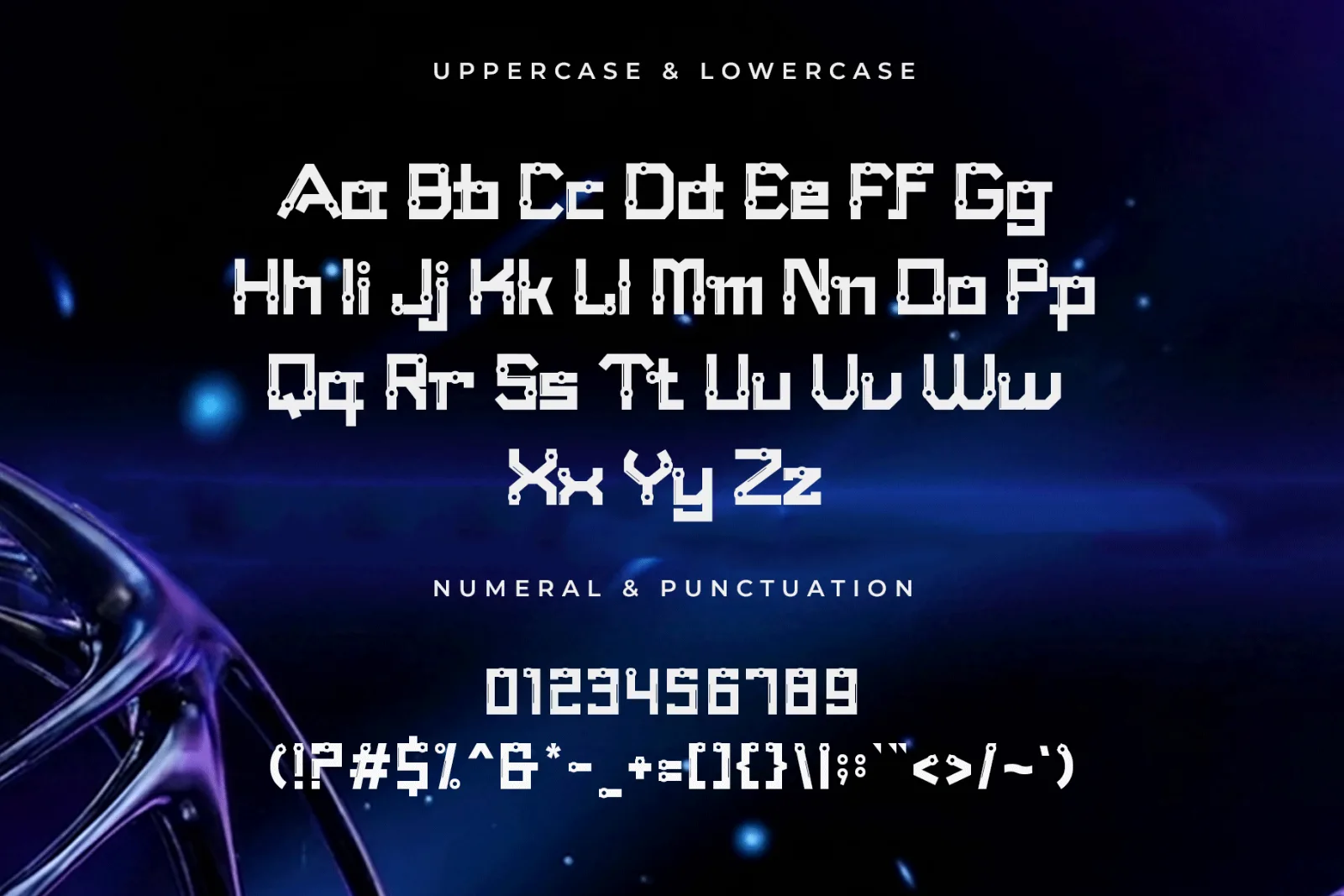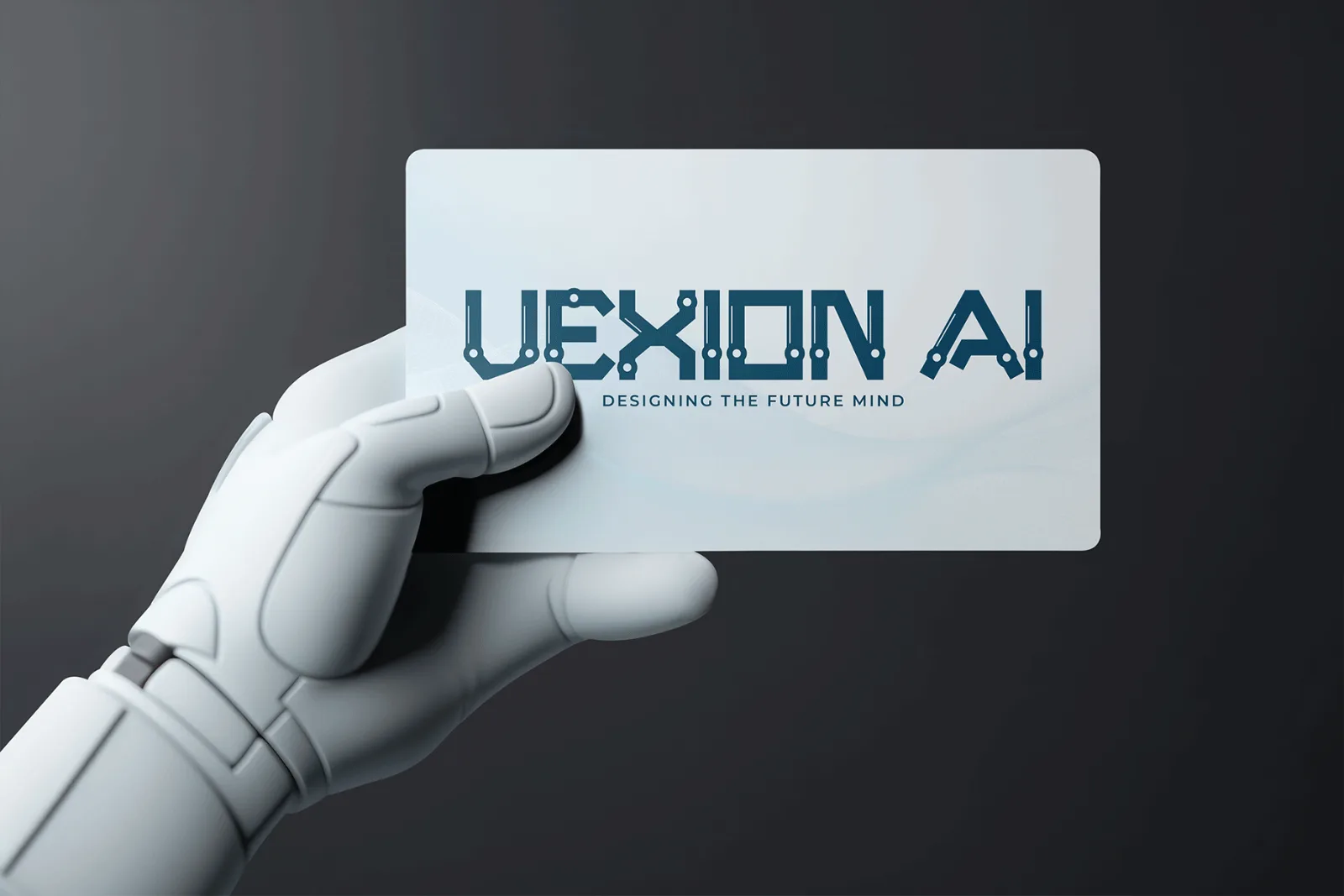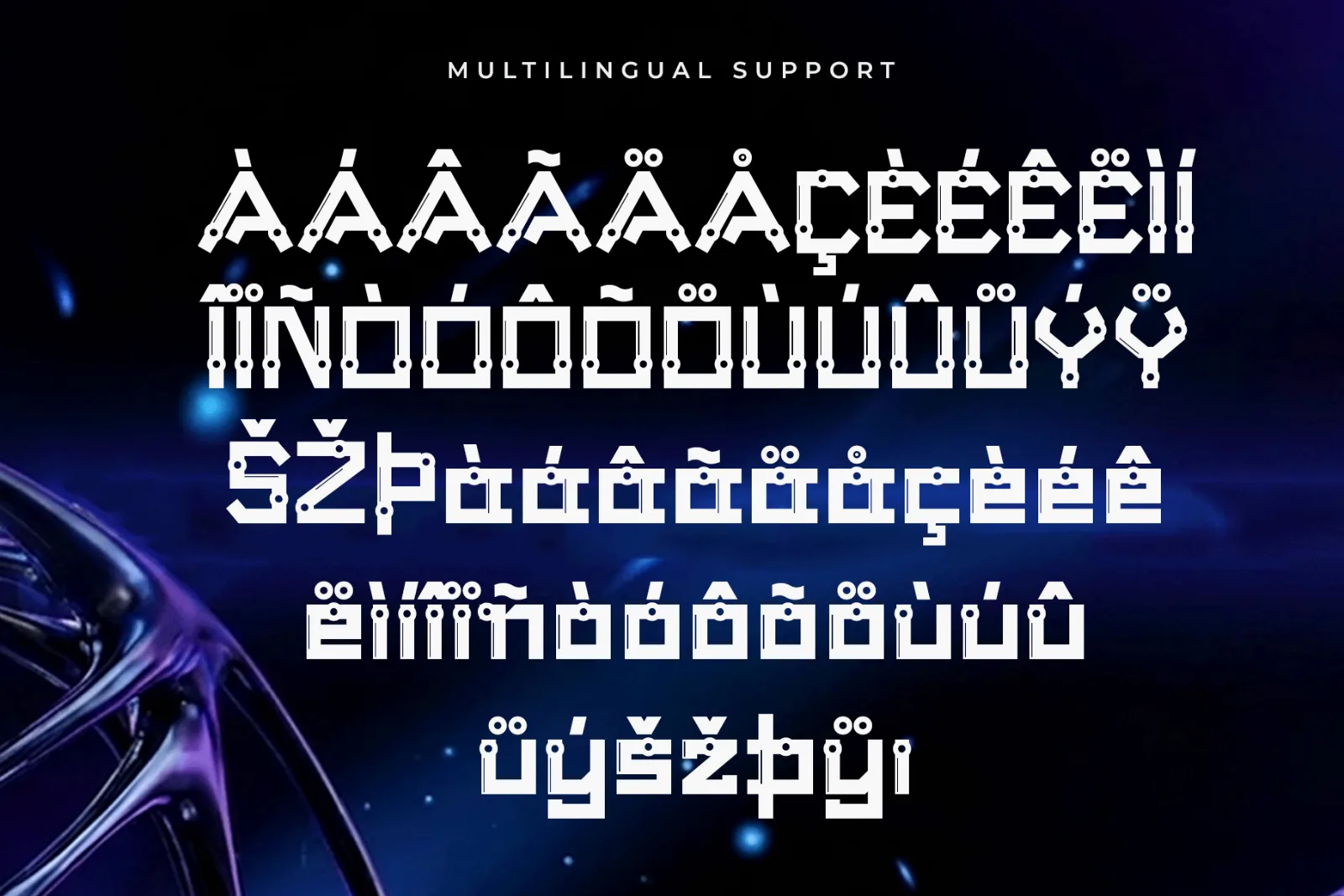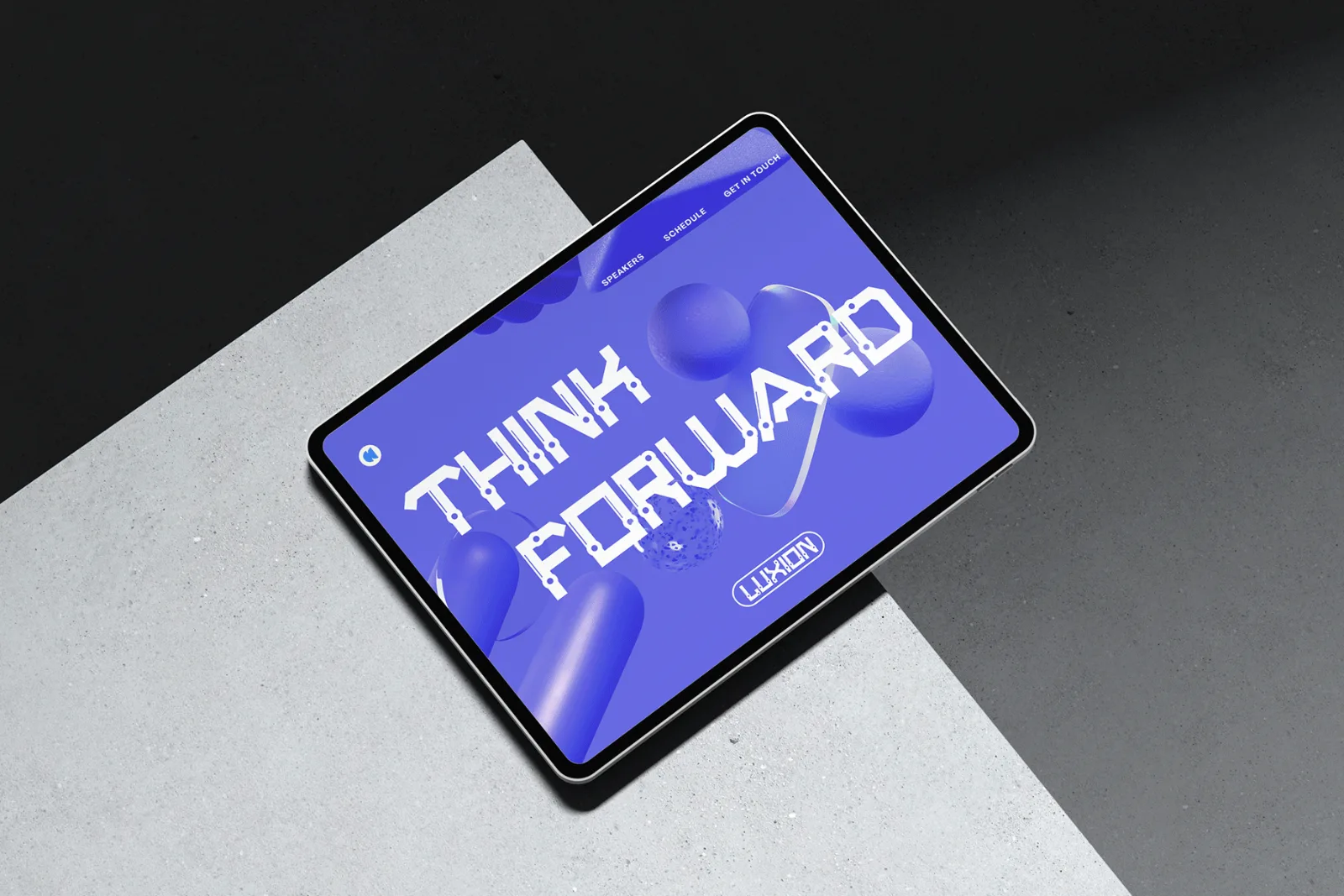
Vexion – Modern Futuristic Tech Display Font
Vexion is a modern futuristic display font built with sharp geometric forms, digital details, and a strong technological personality. Its distinctive letter construction and circuit-inspired accents create a sleek, high-tech appearance designed for bold contemporary visuals.
Perfect for technology branding, gaming titles, sci-fi posters, AI-related graphics, esports, digital products, automotive designs, and creative projects that need a futuristic and innovative identity.
- Technology Branding
- AI & Digital Graphics
- Gaming Titles
- Esports Design
- Sci-Fi Posters
- Software Branding
- Automotive Graphics
- Electronics & Gadgets
- Cyberpunk Artwork
- Album Covers
- Website Headers
- Futuristic Packaging